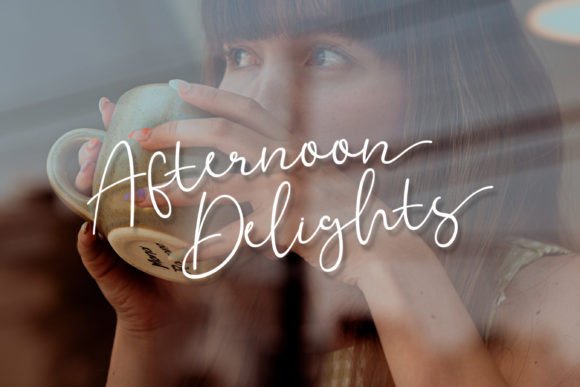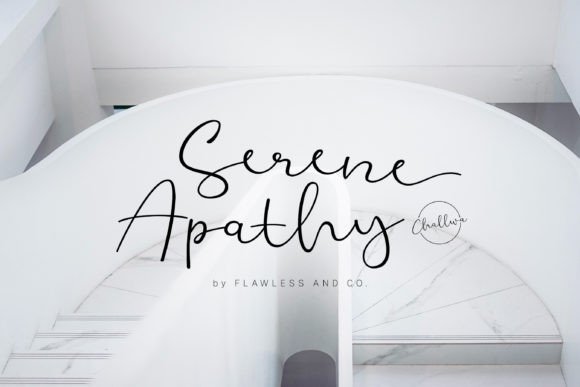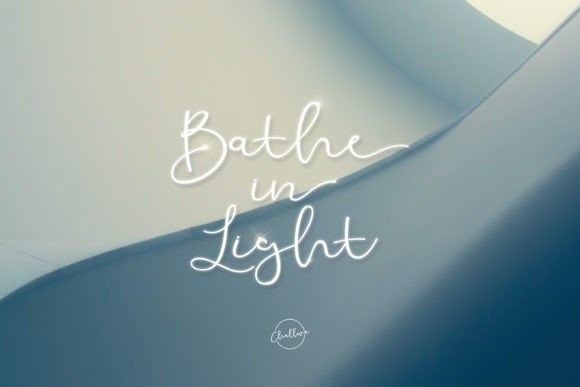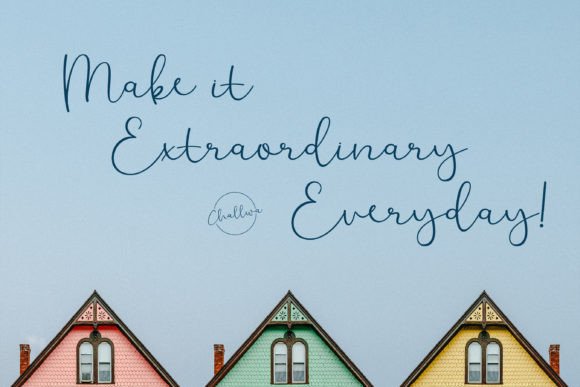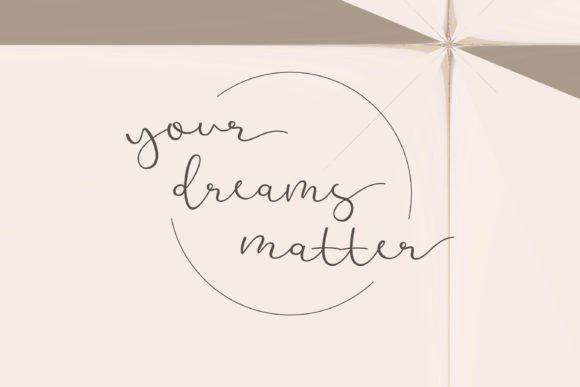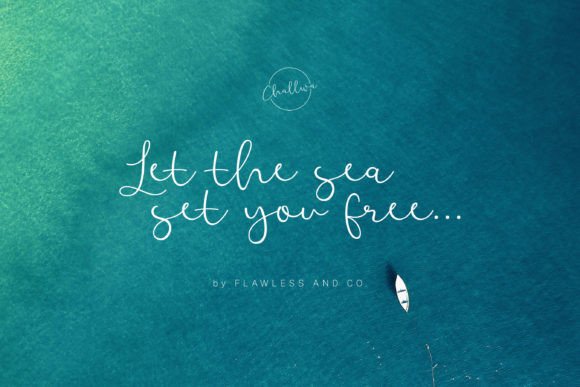
Introducing Challwa Font: Elevate Your Designs with Elegance and Sophistication
In the world of typography, a well-crafted font can make all the difference in transforming a design from ordinary to extraordinary. For designers and crafters seeking to infuse their projects with a touch of sophistication and refinement, look no further than Challwa Font. This exquisite and elegant handwritten font is poised to become your go-to choice for creating stunning visual experiences that exude timeless beauty and effortless elegance.
The Artistry of Challwa Font
Challwa Font showcases the artistry of handwriting with its smooth curves, flowing lines, and meticulous attention to detail. Each letterform has been carefully crafted to embody a sense of refinement and delicacy, making it perfect for designs that demand a high level of sophistication. Whether you’re working on wedding invitations, luxury branding, upscale packaging, or any project that requires a touch of class, Challwa Font is the ideal choice.
Key Features of Challwa Font
- Elegant Letterforms: Challwa’s letterforms are characterized by their graceful and refined strokes, which add a touch of sophistication to any design.
- Smooth Curves and Flowing Lines: The font’s smooth curves and flowing lines create a sense of fluidity and harmony, making it perfect for designs that require a touch of elegance.
- Meticulous Attention to Detail: Every detail in Challwa Font has been carefully considered to ensure that the font exudes a sense of refinement and luxury.
- Versatile: Challwa Font is suitable for a wide range of design projects, from wedding invitations and luxury branding to upscale packaging and more.
Challwa Font is designed to meet the needs of designers and crafters who demand high-quality typography for their projects. Whether you’re working on a commercial project or a personal endeavor, this font is sure to impress. With Challwa Font, you can:
- Create stunning wedding invitations that set the tone for a luxurious and unforgettable event.
- Develop luxury branding that exudes sophistication and refinement.
- Design upscale packaging that stands out on store shelves and communicates a sense of high-end quality.
- Elevate your digital designs, such as social media graphics and website headers, with a touch of elegance.
Why Choose Challwa Font?
With so many fonts available, why choose Challwa Font? Here are just a few reasons why designers and crafters are falling in love with this exquisite handwritten font:
- Unique and Exclusive: Challwa Font offers a unique and exclusive look that sets it apart from more common fonts.
- High-Quality Typography: The font is designed to deliver high-quality typography that enhances any design.
- Support for Multiple Languages: The font supports multiple languages, making it a versatile choice for designers working on international projects.
In conclusion, Challwa Font is an exquisite and elegant handwritten font that adds a touch of sophistication and refinement to any design. With its smooth curves, flowing lines, and meticulous attention to detail, this font is perfect for designers and crafters seeking to create stunning visual experiences. Whether you’re working on a wedding invitation, luxury branding, or upscale packaging, Challwa Font is the ideal choice. So why wait? Discover the beauty and elegance of Challwa Font today and elevate your designs to new heights.